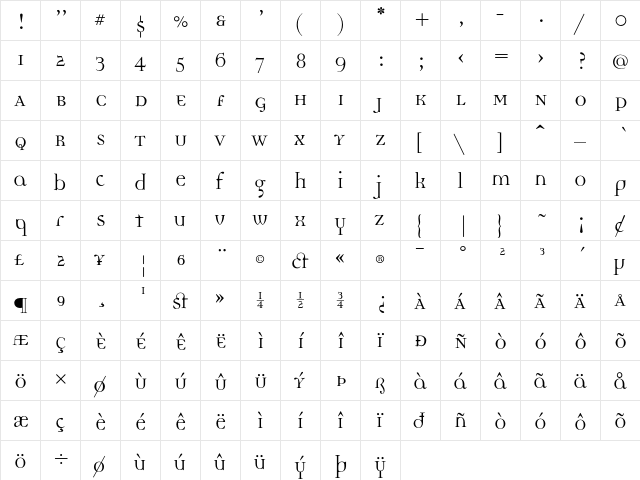
DemocraticaRegularOldstyle Regular
Design Context for DemocraticaRegularOldstyle Typeface
DemocraticaRegularOldstyle brings classic typographic sensibility to the table — its serifs and measured letterforms reflect centuries of print heritage.
Pro Tip: Use DemocraticaRegularOldstyle for editorial body copy and considered headline work. Pair with a neutral sans for UI elements or captions to create a classic hierarchy.